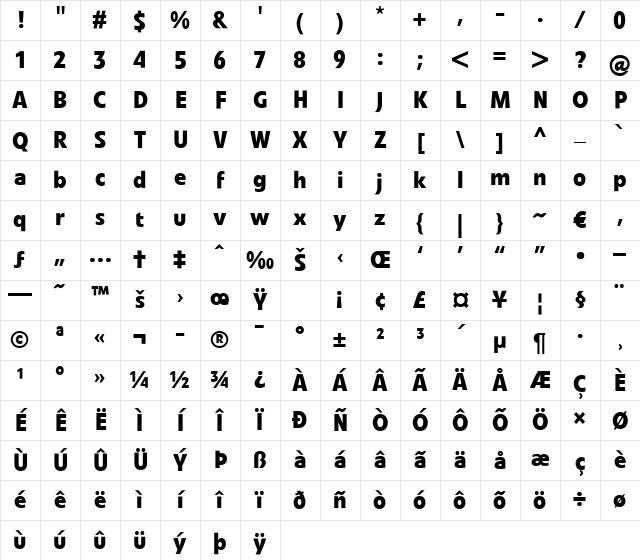
LTVeto Regular Bold Free Font
LTVeto Regular Bold
Designer: Marco Ganz
Design Context for LTVeto Regular
LTVeto Regular is a composed and adaptable typeface that performs quietly and consistently across a wide range of design contexts. Its bold stroke weight gives it real presence on the page.